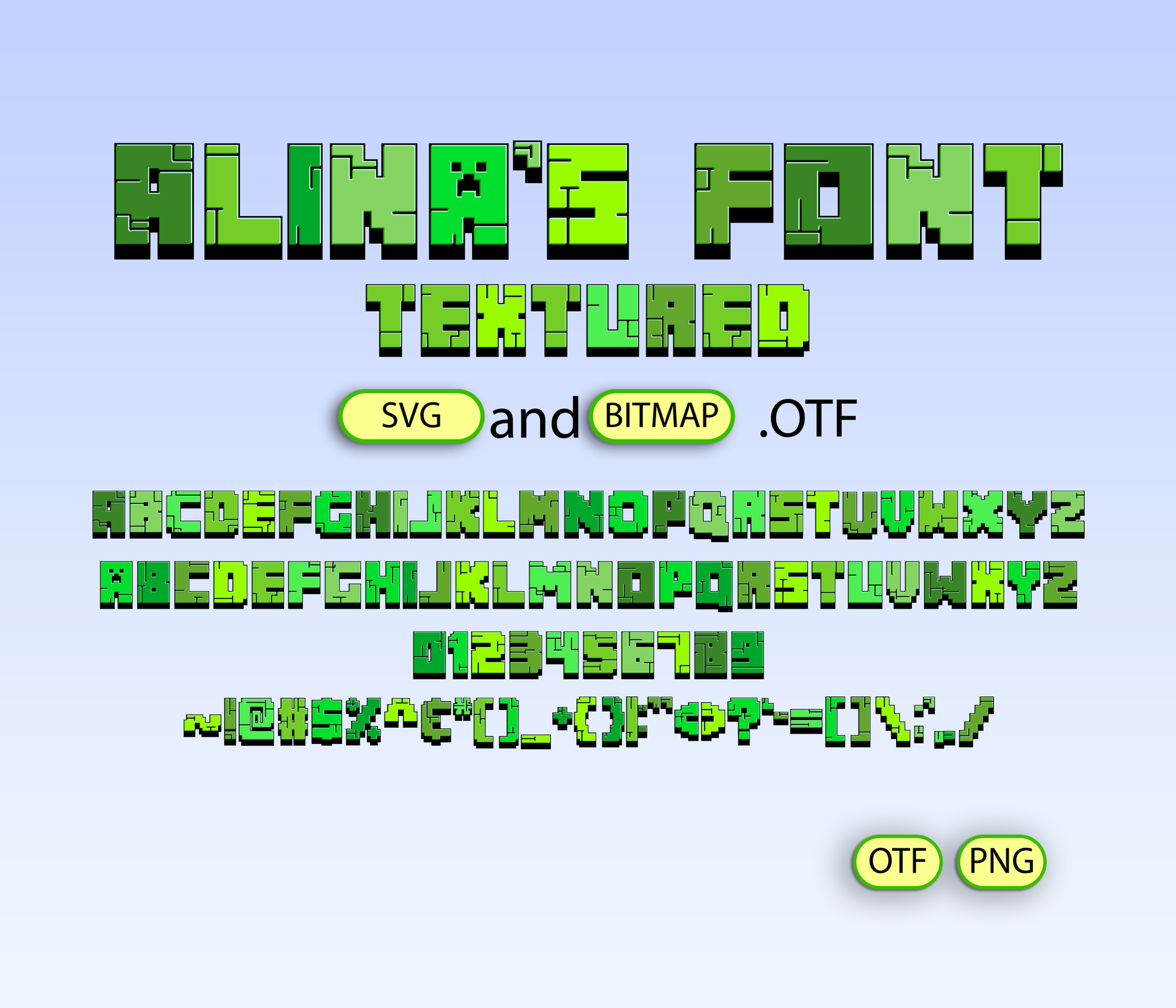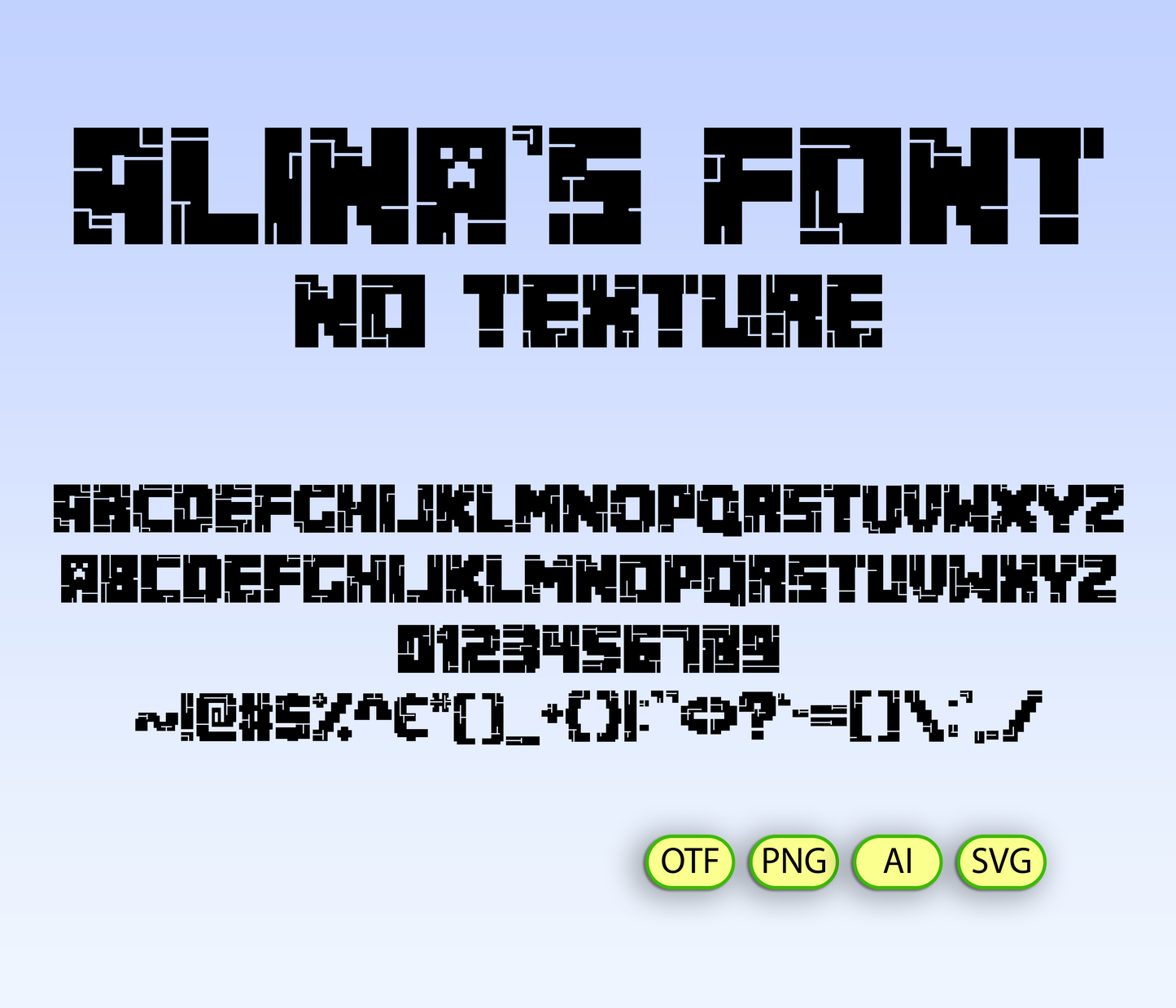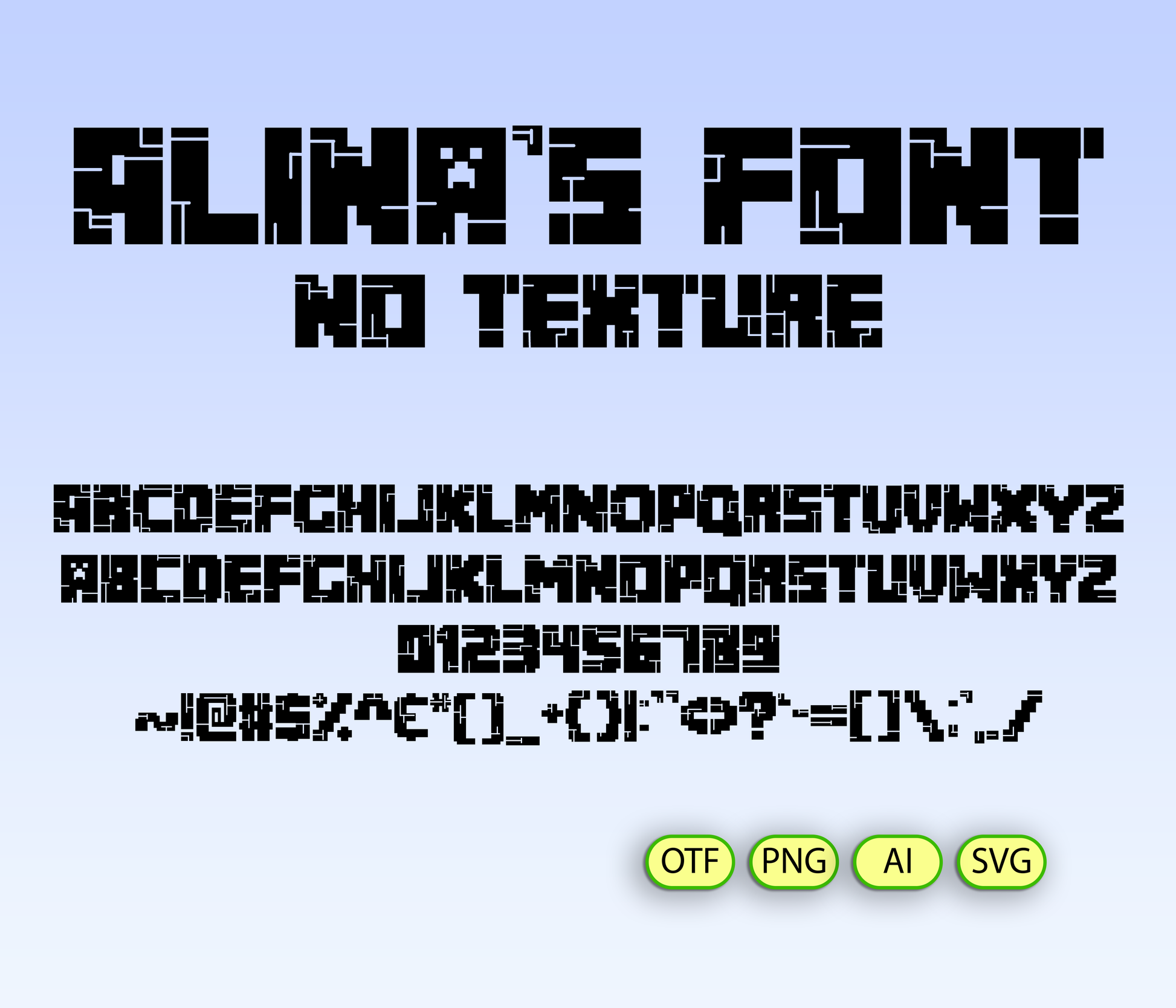
Kubekreation Font Textured
Step into the blocky universe of digital construction with our Kubekreation font, capturing the essence of pixel-based building and creative exploration. Perfect for digital crafters, sandbox enthusiasts, event organizers, and designers, this font brings the distinctive, geometric spirit of voxel architecture to your projects. Create gaming-inspired materials, merchandise, or digital content with the charming energy of square-world adventures.
Our Kubekreation font features square-edged, pixelated forms and cubic characters reflecting the realm of virtual construction. Ideal for:
1. Event Promotions: Create vibrant invites, posters, and banners for digital gatherings, conventions, and themed parties that capture the spirit of brick-by-brick creation
2. Merchandise Design: Perfect for t-shirts, posters, and accessories that showcase the distinctive square aesthetic of virtual world-building
3. Digital Media: Enhance websites, blogs, and social media with crisp headers and graphics that express the joy of pixel architecture
4. Sandbox Content: Add authentic flair to fan works, builder-inspired projects, and creative designs related to digital terrain crafting
5. Personal Projects: Bring cuboid charm to scrapbooking, DIY crafts, and home decor inspired by the world of procedural generation
Our font pays tribute to the iconic world of block-based sandbox games, empowering your designs with its pixelated and inventive spirit. Whether crafting promotional materials, designing merchandise, or adding a dynamic touch to personal projects, this font communicates the bold essence of digital world-building. Ready to inject cubic imagination into your creations? This font is your key to exciting, impactful design.